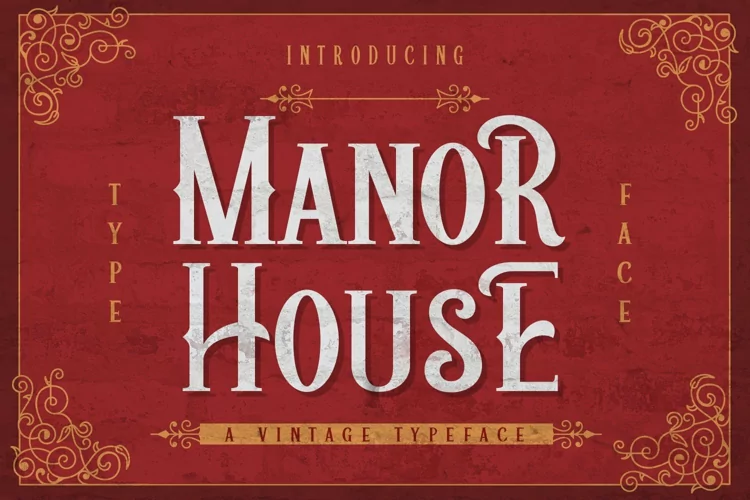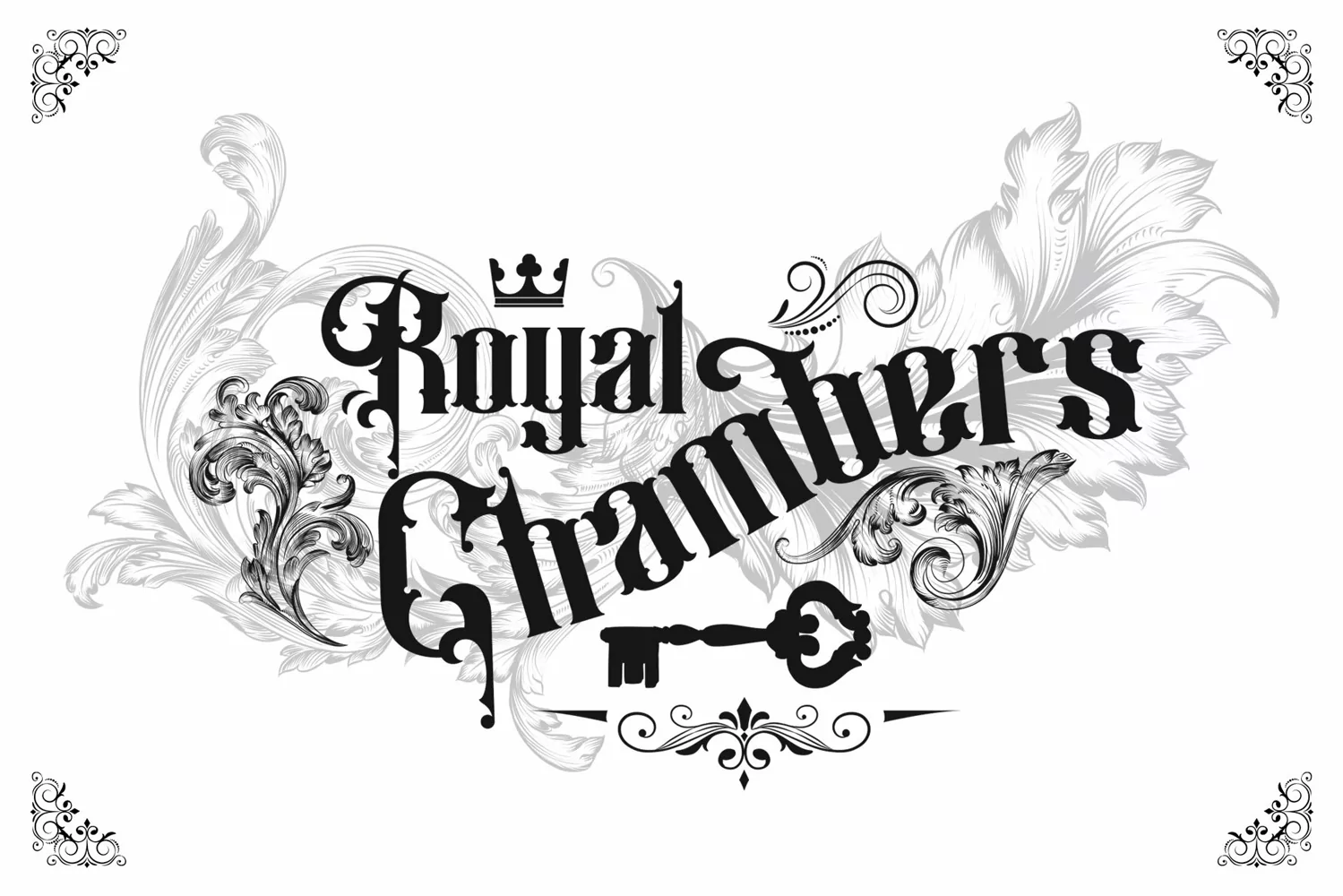
Manhock Font
This pair was inspired by t-shirt design that i saw at instagram, It was crafted by hand specially to add natural handmade feeling in its brand identity than i make it clean with pentool.
Manhock Font is very good looking in logo,movie poster design, youtube tumbnail, labels, product packaging, invitations, advertising and others.
If you need a font for with decorative vintage style, Manhock font is great choice for you to make your design authentic and unique.